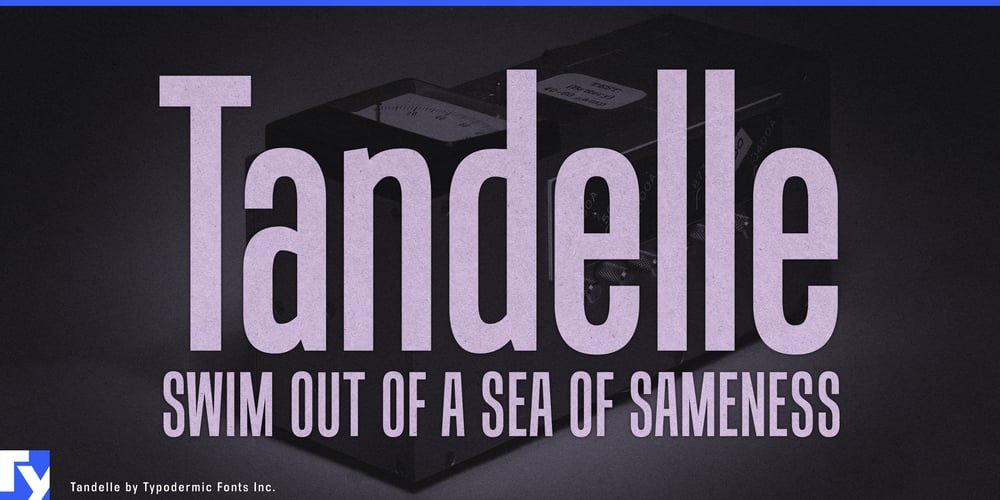
Tandelle Font Family was designed by Ray Larabie and published by Typodermic. Tandelle contains 4 styles and family package options. Step into the sleek world of Tandelle, a sans-serif typeface that’s mastered the art of doing more with less. Born from the challenge of limited horizontal space, Tandelle doesn’t just occupy it—it owns it. This typeface turns constraints into creative opportunities, making it the go-to choice for designers who refuse to compromise on style or legibility.Tandelle’s personality shines through its distinctive details. Flat points on verticals like “A” juxtapose sharply with pointed horizontals on characters like “Z,” creating a visual rhythm that’s both sophisticated and eye-catching. It’s these subtle flourishes that elevate Tandelle from a mere space-saver to a design powerhouse. Despite its narrow frame, Tandelle remains remarkably readable. Spacious letterforms and minimal detailing ensure clarity, even in the tightest spots. From punchy headlines to compact captions, Tandelle performs with grace under pressure. Its clean, modern aesthetic seamlessly adapts to a spectrum of design challenges—be it sleek branding, cutting-edge advertising, or streamlined digital interfaces.The Tandelle family comes in a quartet of styles: Regular, Italic, Bold, and Bold-Italic. This versatility allows you to fine-tune your message, whether you’re aiming for understated elegance or bold proclamations. And with support for an extensive range of Latin-based European languages, Tandelle speaks volumes in dozens of tongues.Don’t let space constraints box in your creativity. Let Tandelle break those boundaries and bring a fresh, sophisticated edge to your designs. It’s time to make every character count—download Tandelle now and watch your typography take flight in even the narrowest of spaces.